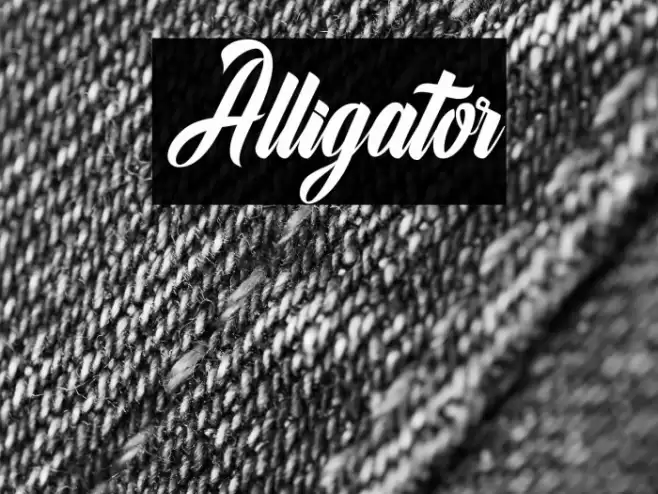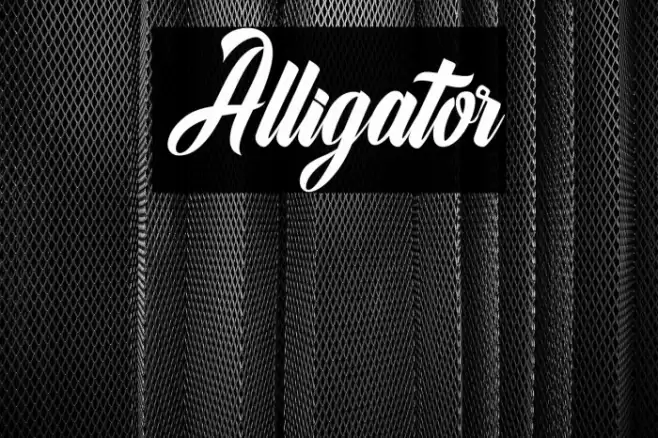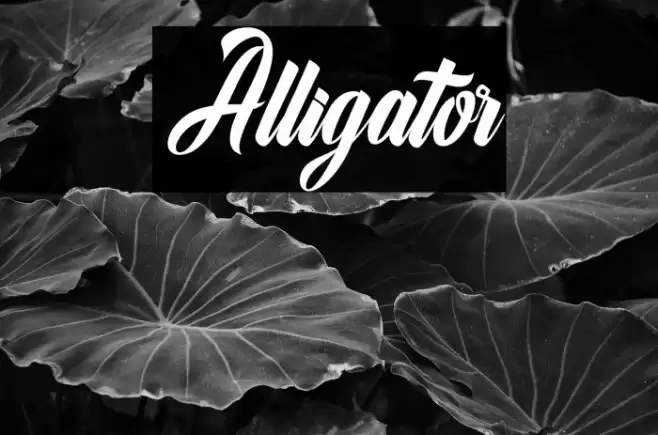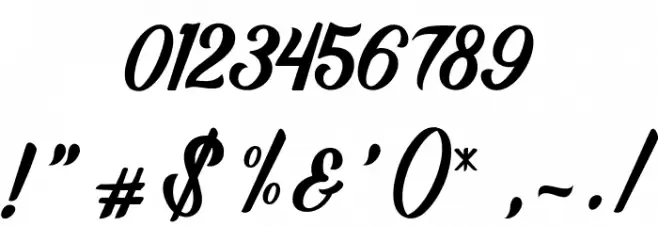
Alligator Font
Alligator Description
This font features a bold, cursive style with a flowing and elegant appearance. The letters are interconnected, creating a seamless and fluid look that is both sophisticated and dynamic. The uppercase letters have a strong presence with their sweeping curves and loops, while the lowercase letters maintain a consistent rhythm and balance. The numbers and special characters are designed to match the overall aesthetic, ensuring a cohesive look across all text. This font is ideal for projects that require a touch of elegance and flair, such as invitations, branding, and decorative headings.
A bold, cursive font with flowing, interconnected letters and elegant style from Regular fonts.
- Font: Alligator
- Proposed Projects: Ideal for invitations, branding, decorative headings, and elegant designs.
- Character Spacing: Tight
- Overall Style: Elegant
- Use Case: Headlines, Logos, Invitations